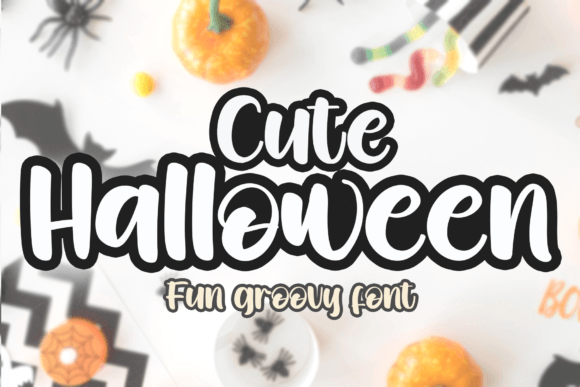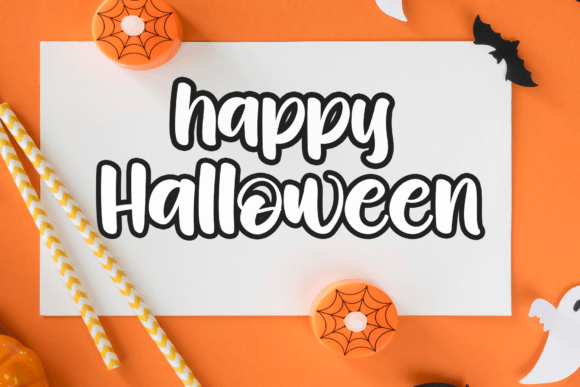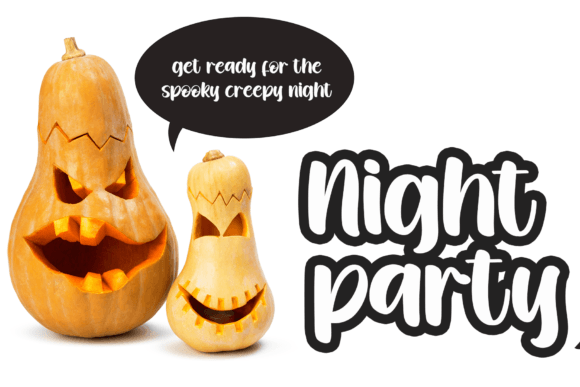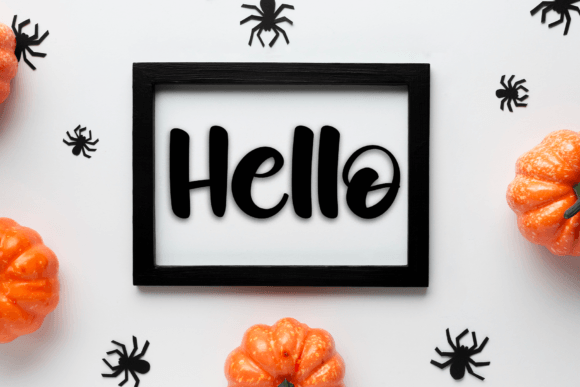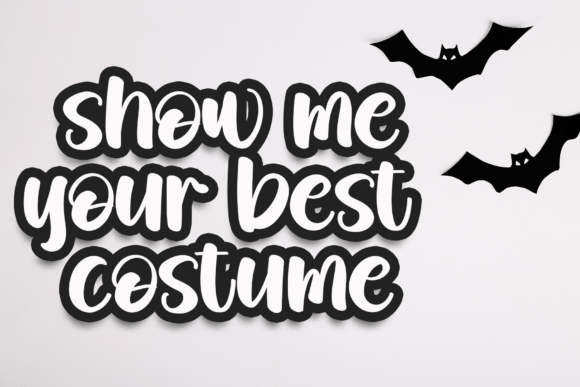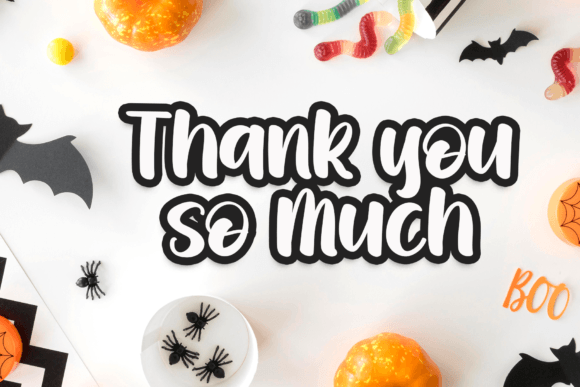
Cute Halloween Font
Cute Halloween is a cute groovy retro font perfectly suited for retro designs. It will be suitable for designing t-shirts, tote bags, hats, stickers, wedding designs, logos, cards, quotes, and more! This typeface will make any creative idea stand out and look stunning!